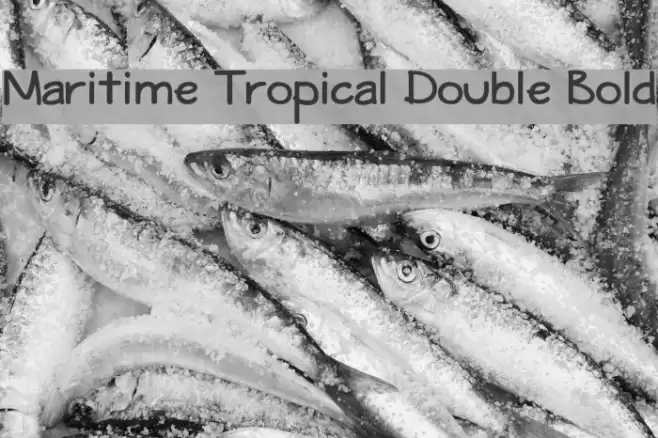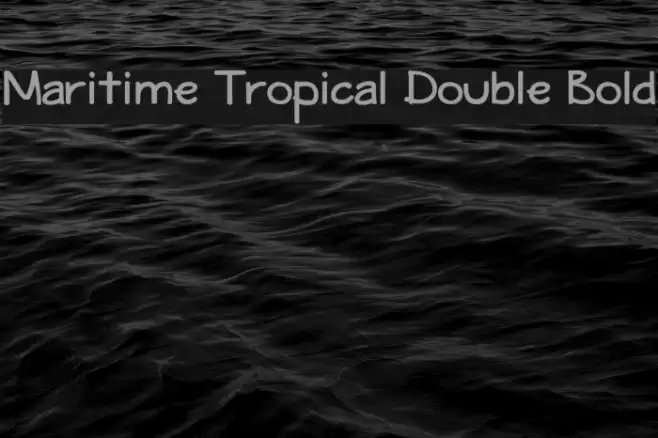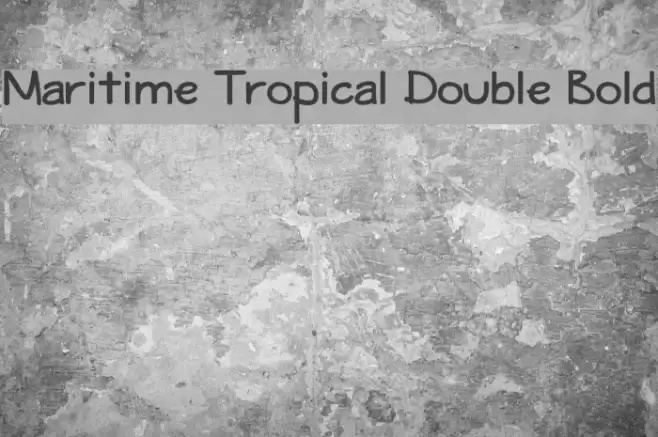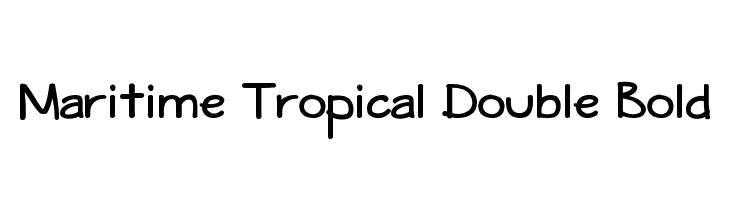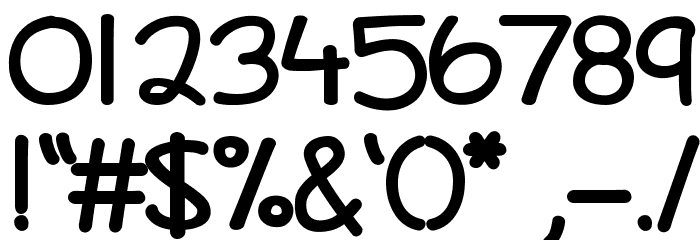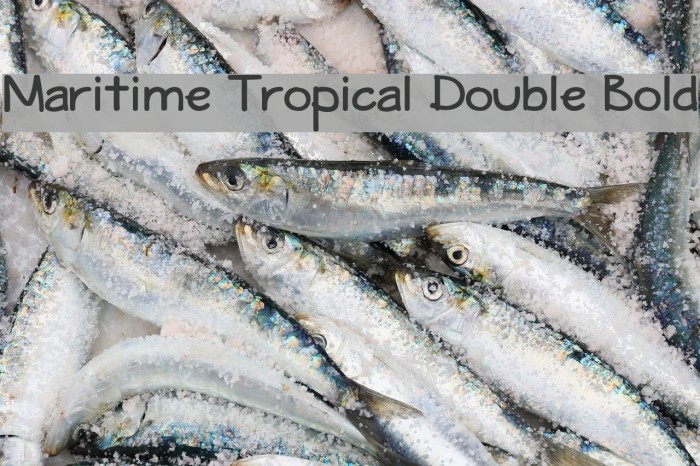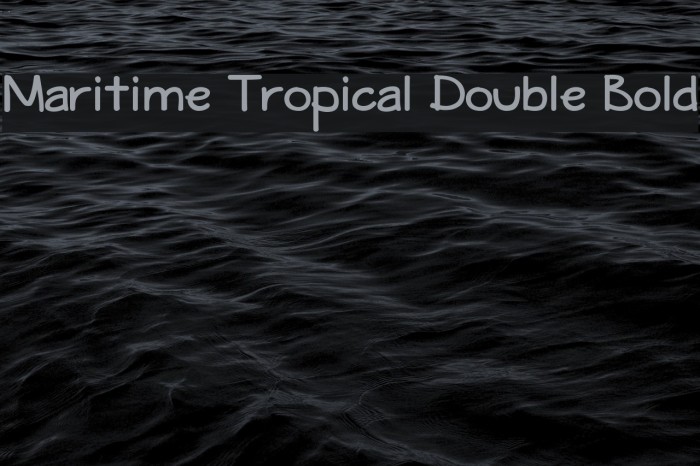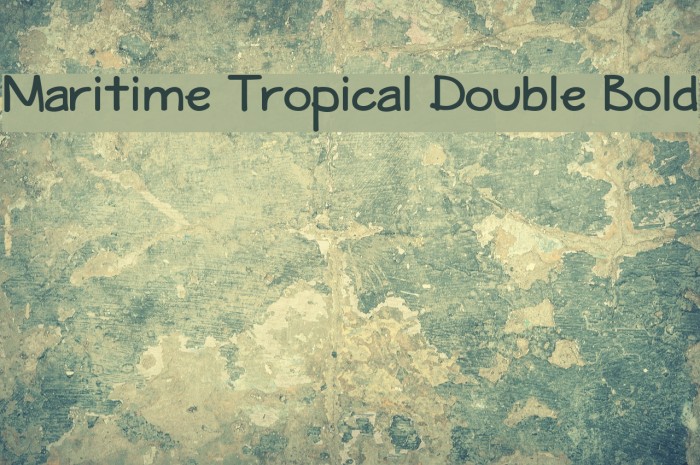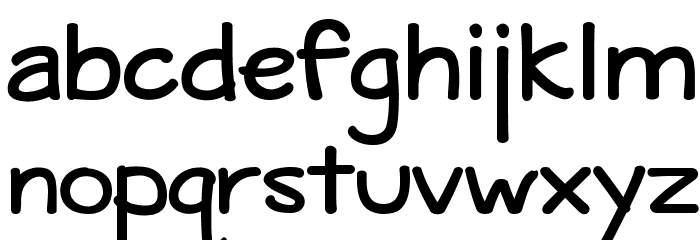
Maritime Tropical Double Bold Font
Maritime Tropical Double Bold Description
This font features a playful and rounded style, characterized by its bold and smooth curves. The letters have a consistent thickness, giving it a friendly and approachable appearance. The uppercase and lowercase letters maintain a uniform height, contributing to a cohesive look. The numbers and special characters are designed with the same playful aesthetic, making them easily readable and visually appealing. The overall design is modern and casual, suitable for projects that require a touch of whimsy and fun.
A playful, rounded font with bold, smooth curves and a modern, casual style from Uncategorized fonts.
- Font: Maritime Tropical Double Bold
- Proposed Projects: Ideal for children's books, playful branding, casual invitations, or any project needing a fun and approachable typeface.
- Overall Style: Modern, Casual, Playful
- Use Case: Headlines, Logos, Posters, Invitations